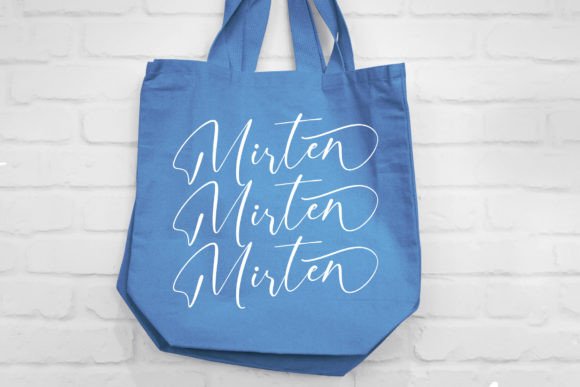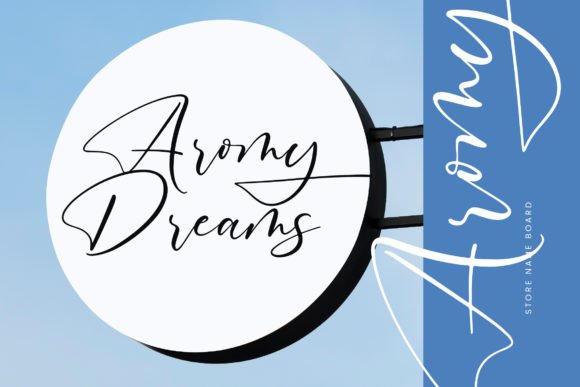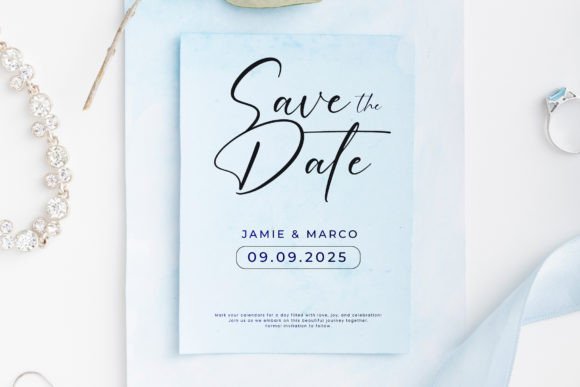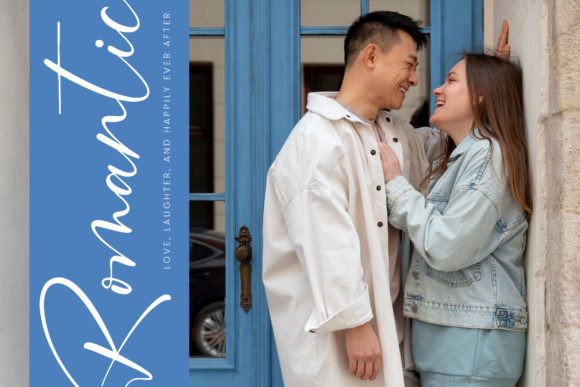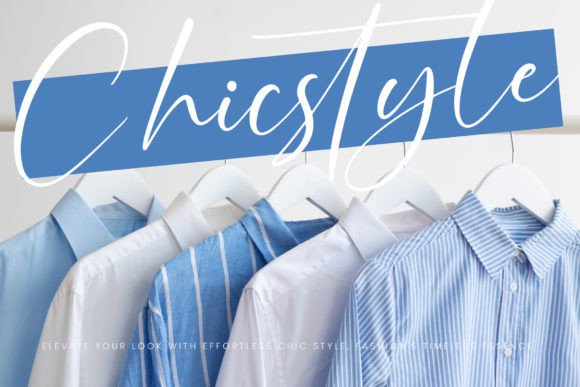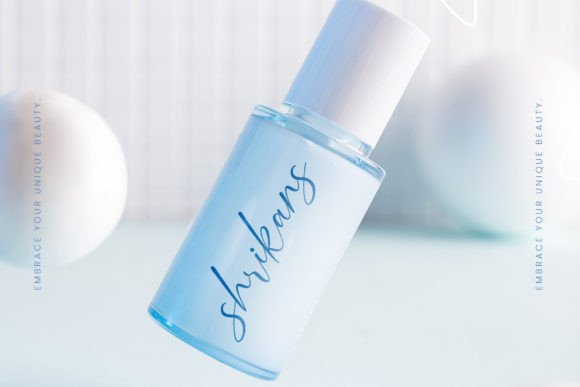
Introduction to Motion Amusement Font
Do you remember that moment when a brilliant idea strikes you, and you can’t wait to bring it to life? For designers, this moment is a thrill that never gets old. It’s the spark that sets off a creative chain reaction, and it’s exactly what happens when you stumble upon the perfect font for your next project. That’s precisely what we’re excited to share with you today – the Motion Amusement Font, a game-changing design resource that’s about to take your creative projects to the next level.
As a high-quality font, Motion Amusement Font is designed to add a playful touch to any project, making it perfect for logos, posters, and trendy merchandise. Its sleek lines and unique flair will transport your design to a world of modern sophistication, guaranteed to leave a lasting impression on your audience.
With its transparent background and free download option, Motion Amusement Font is an invaluable resource for designers looking to elevate their creative projects with a fresh and stylish design element. Whether you’re working on a commercial project or a personal passion project, this font is sure to bring a burst of energy and excitement to your design.
Key Features of Motion Amusement Font
- High-quality design resource for creative projects, including animations and motion graphics.
- Transparent background option for seamless integration into various design environments.
- Resolution-independent design, ensuring crisp and clear display on high-resolution screens.
- Unique, hand-drawn style that adds a touch of personality to any design project.
- Designed to work well in a variety of design contexts, from logos and branding to digital products and print materials.
Honest Review: Motion Amusement Font
As a designer, I’m always on the lookout for unique and high-quality design resources. The Motion Amusement Font caught my attention with its quirky and playful vibe, making it perfect for a creative project that needs a bit of whimsy.
One of the standout features of this font is its transparent background, which makes it super easy to work with and customize. I love how versatile it is, and I’ve used it in everything from social media graphics to promotional materials.
- High-quality design with a unique personality
- Perfect for creative projects that need a bit of flair
While I adore the Motion Amusement Font, there are a few limitations to keep in mind:
- Not suitable for formal or professional designs
- Limited character set (although this might be a design choice)
Overall, I’m thoroughly impressed with the Motion Amusement Font. Its high quality and versatility make it a fantastic addition to any designer’s toolkit. If you’re looking for a fun and creative font to spice up your next project, this is definitely worth checking out.
The Motion Amusement Font is a high-quality design resource perfect for creative projects that require a unique and eye-catching aesthetic. With a transparent background, this font is ideal for designers looking to add a touch of whimsy to their work.
The Motion Amusement Font is perfect for a variety of creative projects, including:
- Branding materials
- Event invitations
- Advertising materials